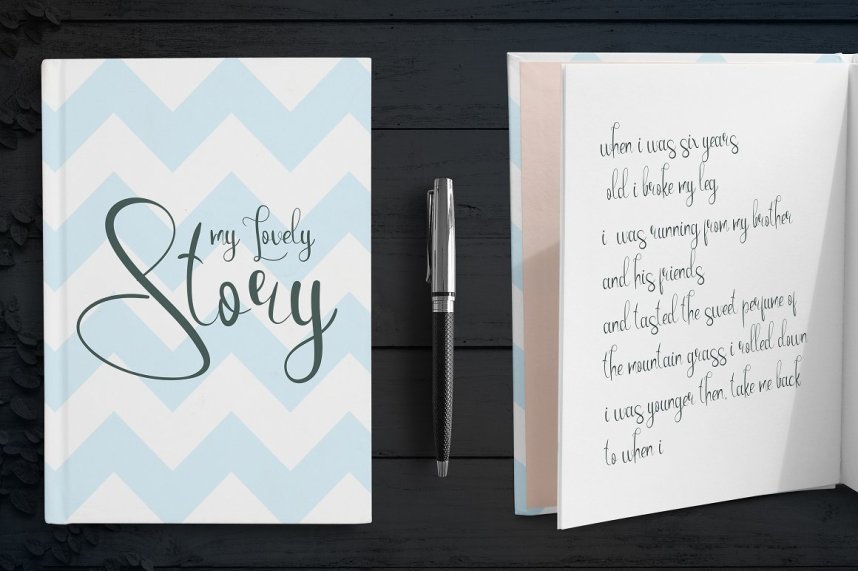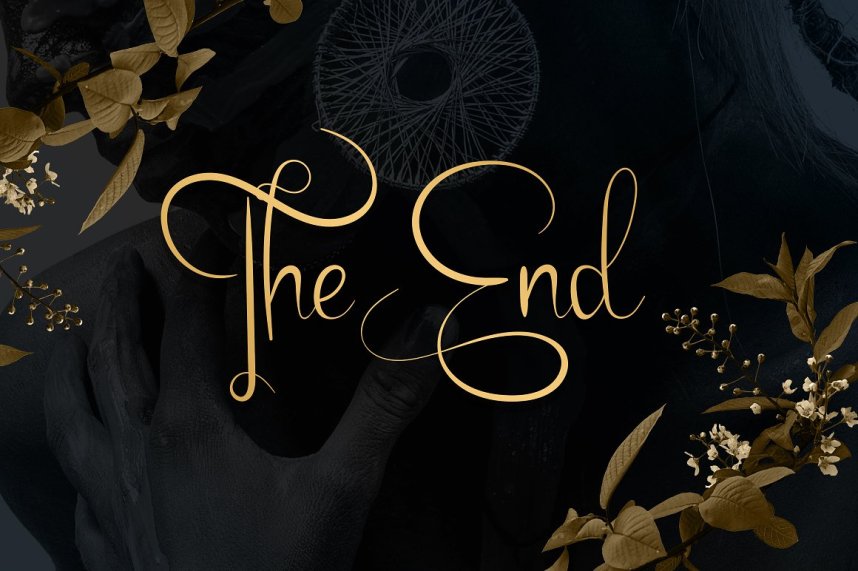
Emanuela Script – Free Demo
That would be a great gift for you. A new handwriting style. Add it now to your fonts collection. Introducing Emanuela Script Font! Emanuela designed and shared by Vladfedotovv. A handwritten font with a personal charm. With dry clean lines, Emanuela is perfect for branding projects, home-ware designs, product packaging – or simply as a stylish text overlay to any background image.